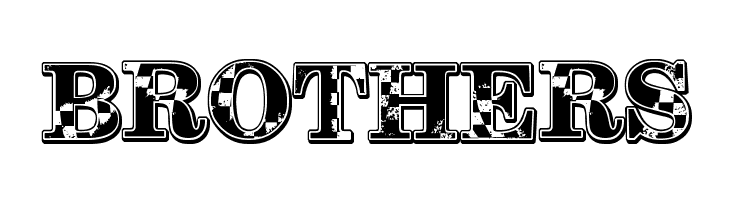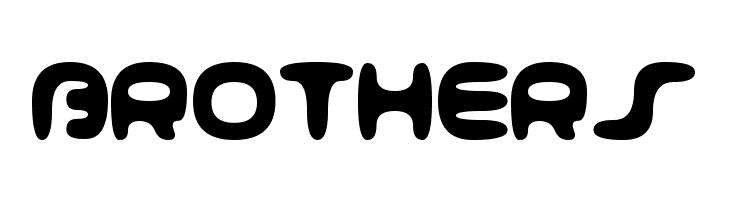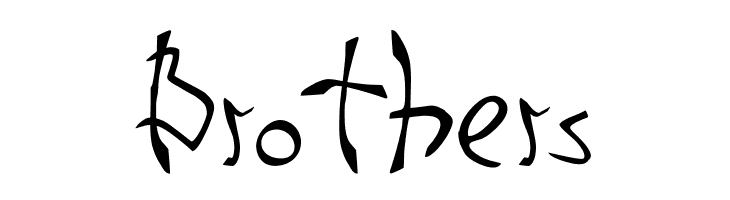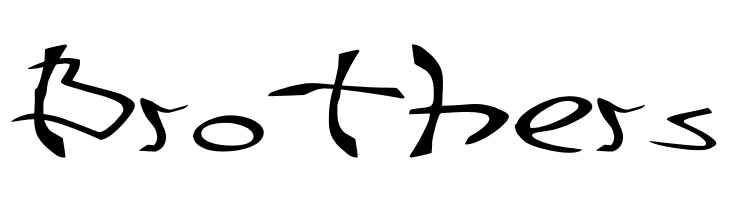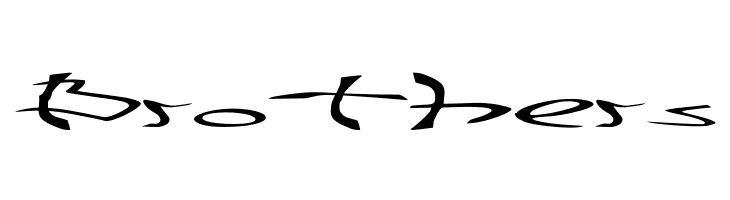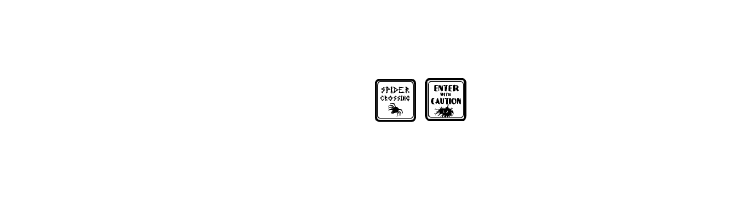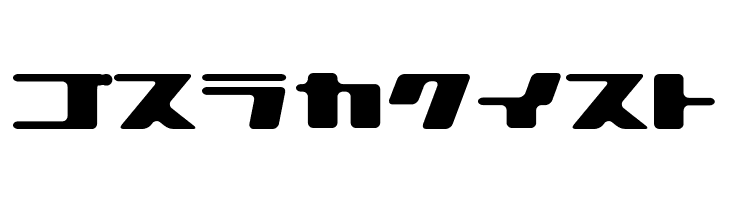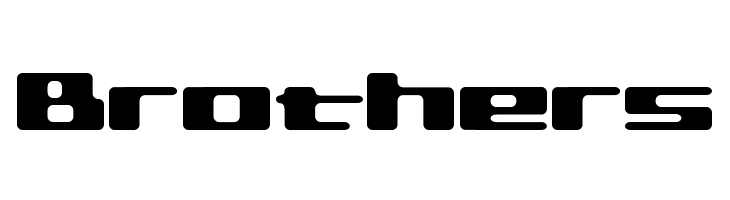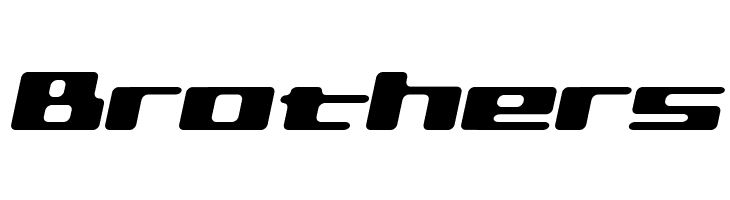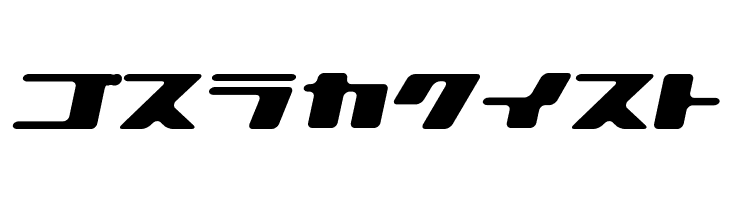
( !Exclamachine Type Foundry - exclamachine.com/ )
A bold, jagged font with sharp angles and a dynamic, irregular style.
( Jérôme Delage )
A bold, distressed font with a grunge-inspired, textured style.
( Fonts by www.imbran.net - Bran )
A hand-drawn, sketch-style font with playful, irregular strokes.
A modern, geometric sans-serif font with a sleek, condensed design.
A bold, modern font with a sleek and slightly condensed design.
A modern, geometric font with tall, narrow characters and clean lines.
( Jane Bond )
A whimsical, hand-drawn font with playful loops and swirls.
( Jane Bond )
A casual, handwritten font with a playful yet structured appearance.
( Fonts by Jonathan Paquette - www.jonathanpaquette.com )
A bold, decorative font with a distressed, vintage texture and checkered pattern.
A bold, playful handwritten font with thick strokes and a casual style.
( Gilles Clemenceau - www.sinfulgarden.com )
An intricate and decorative cursive font with elaborate swirls and flourishes.
( Fonts by www.junkohanhero.com )
A bold, double-outlined decorative font with a playful and engaging style.